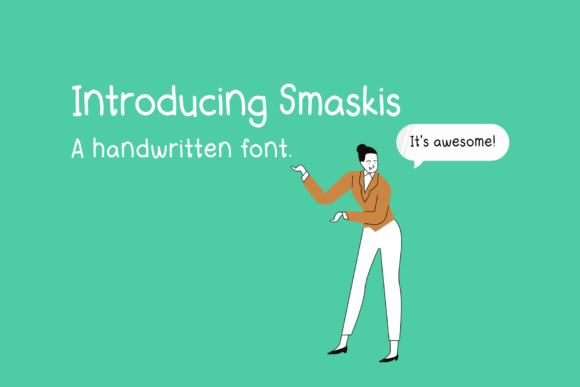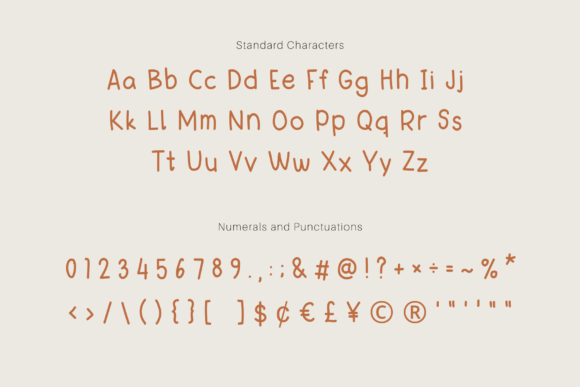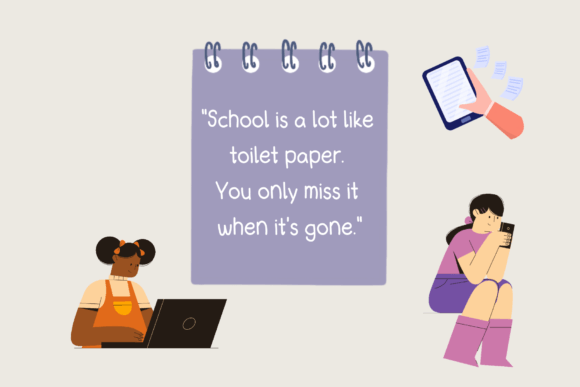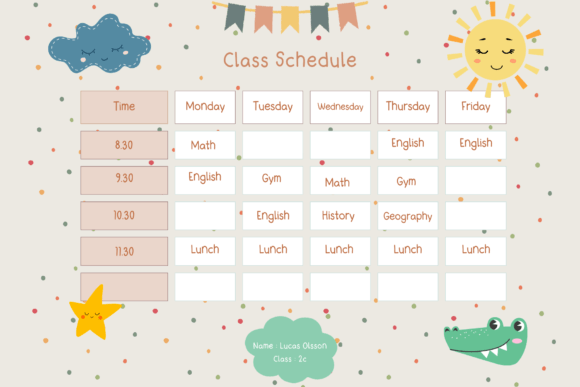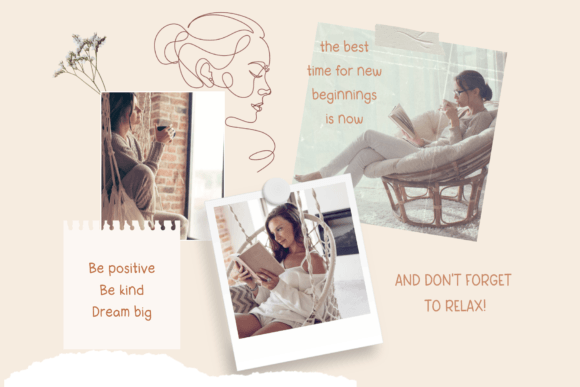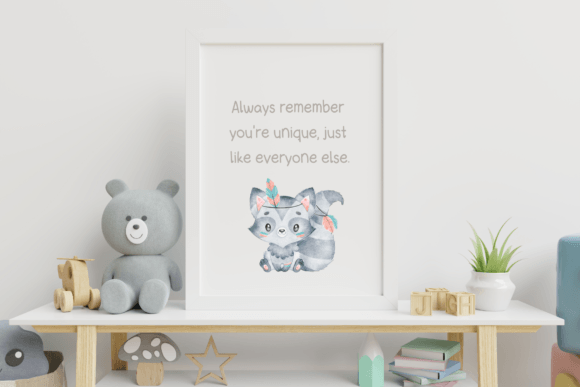
Introduction to Smaskis Font
Have you ever found yourself lost in a sea of blank paper, struggling to bring your creative ideas to life? It’s a moment we’ve all experienced at some point – the spark of inspiration, the blank page staring back at us, and the desperate search for the perfect tool to help us breathe life into our vision.
That’s where the Smaskis Font comes in – a beautiful, handwritten font that’s perfect for journaling, digital notes, and all sorts of creative projects. Whether you’re a designer looking for a unique design resource or a crafty individual seeking a high-quality font for your next project, Smaskis Font is an invaluable asset that’s sure to elevate your work.
Key Features of Smaskis Font
- Unique, hand-drawn style with intricate details, making it perfect for artistic and creative projects.
Honest Review: Smaskis Font
One of the standout features of the Smaskis Font is its transparent background, which makes it super easy to customize and integrate into your designs. I also appreciate the variety of styles and weights available, which gives me a lot of flexibility when it comes to choosing the perfect font for my project.
- Variety of styles and weights: Gives designers flexibility when choosing the perfect font
- High quality: Smooth and crisp font that looks great in print and digital formats
The Smaskis Font is a high-quality design resource that can be used in a variety of creative projects. It features a transparent background, making it perfect for overlaying on images or videos.
Experiment with different font sizes and styles to create a unique look. Use the transparent background to create a sense of depth and dimensionality in your design.
The Smaskis Font is perfect for creating eye-catching graphics, logos, and typography for social media, websites, and marketing materials. It’s also great for adding a touch of elegance to presentations and documents.